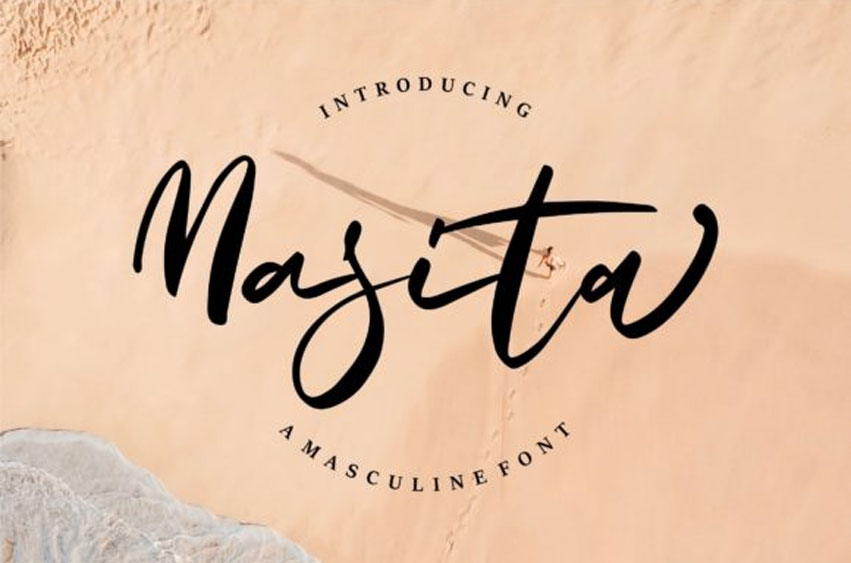
Masita Font is a trendy, stylish and casual script font. It has a modern yet whimsical style and it will undoubtedly immerse your designs into a magical world.
Masita Font Preview